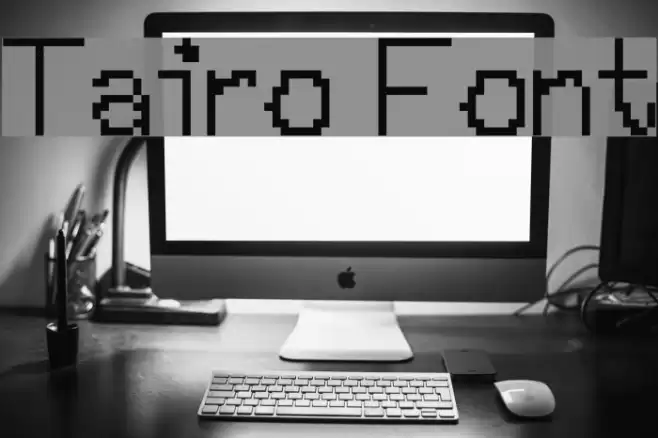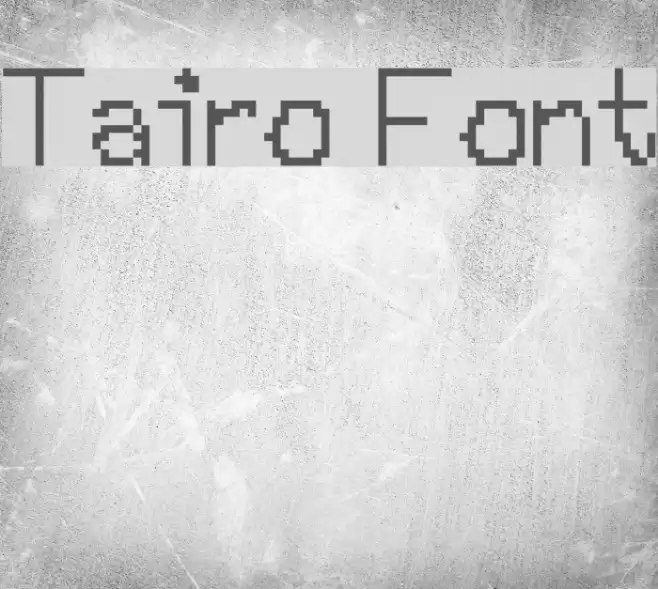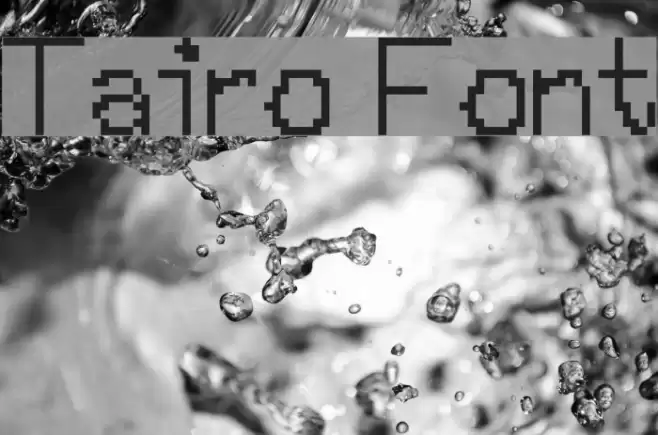
Tairo Font
Tairo Description
This font features a pixelated, blocky design reminiscent of early digital displays and retro video games. Each character is composed of a grid-like structure, giving it a distinctly digital and nostalgic feel. The uppercase and lowercase letters maintain a consistent height, with sharp angles and straight lines dominating the design. Numbers and special characters follow the same pixelated style, ensuring uniformity across all glyphs. This font's unique aesthetic makes it stand out, offering a playful yet structured appearance that is both modern and retro.
A pixelated, blocky font with a retro digital aesthetic from Uncategorized fonts.
- Proposed Projects: Ideal for video game design, retro-themed posters, digital art projects, and any creative work that requires a nostalgic digital touch.
- Overall Style: Retro, Digital
- Use Case: Logos, Headlines, Digital Art